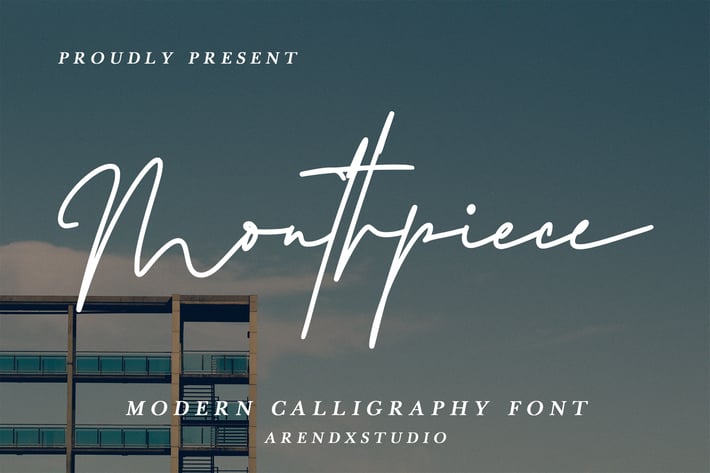
Mouthpiece - Modern Calligraphy Font
Mouthpiece - Modern Calligraphy Font is a font with distinctive handwritten characters perfect for branding projects, logos, wedding designs, media posts, advertisements, product packaging, product designs, labels, photography, watermarks, invitations, stationery, and any project who need handwritten dishes.